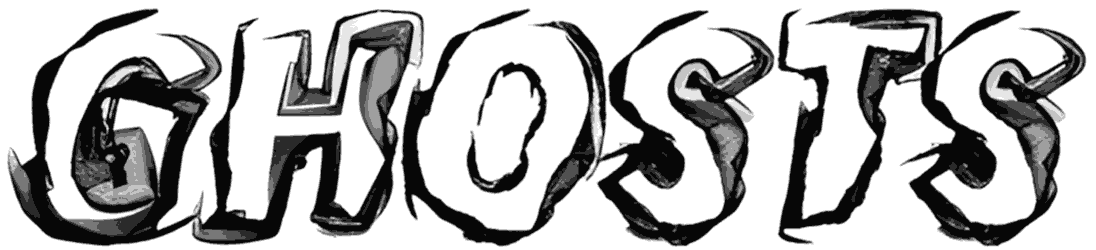
Ghosts Font
For redefining your creepy visual production in a realistic frame to take your design to a whole new level, or promoting your titling for Halloween flyers, scary movies, and games, never bypass Ghosts, this horror font with its dreadful and mysterious vibes is available in RBs catalog.
Although it lacks the lowercase letters and numbers yet it’s in the lead! Give this Halloween font a try and see how well it sounds in the real world.